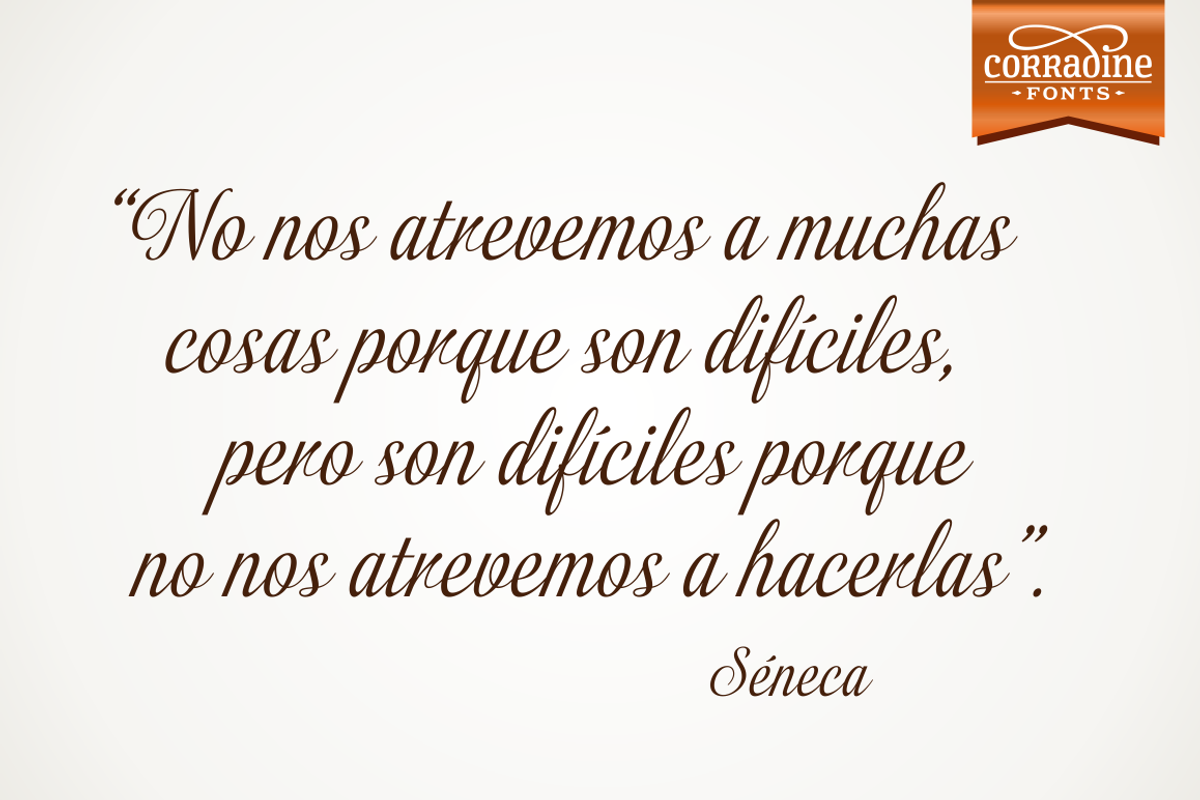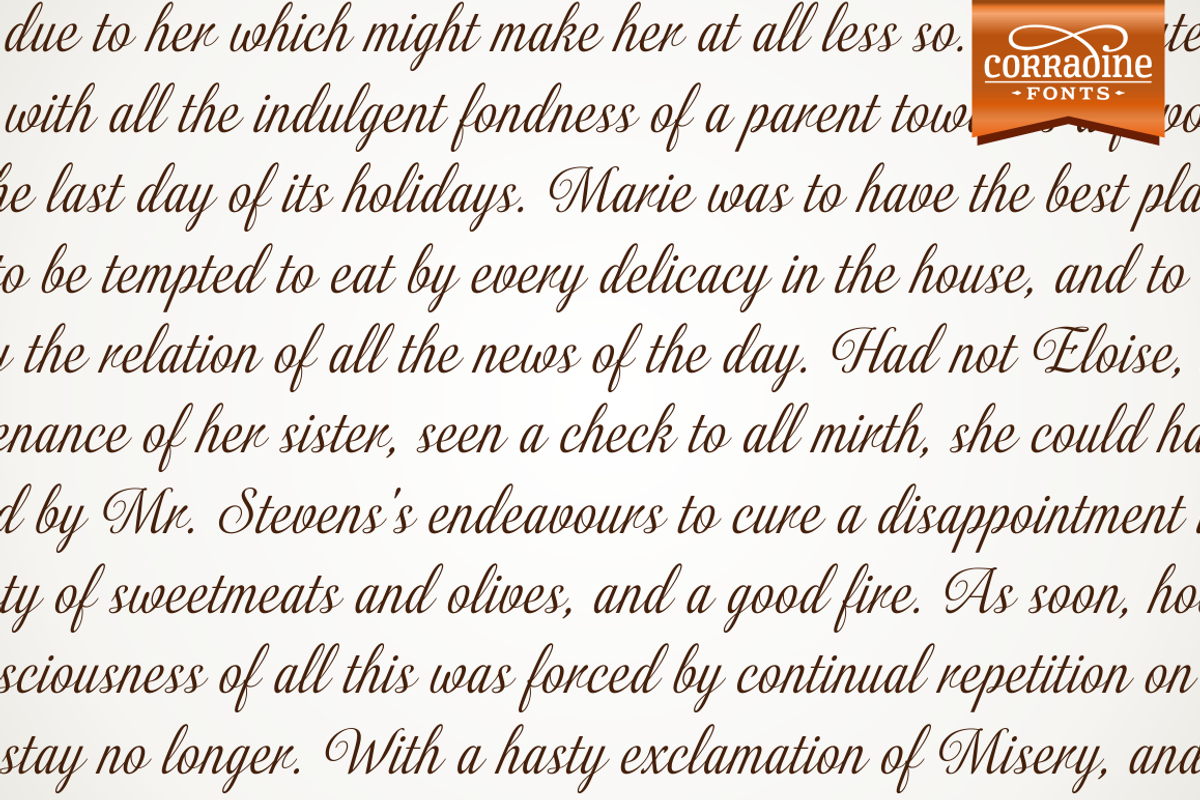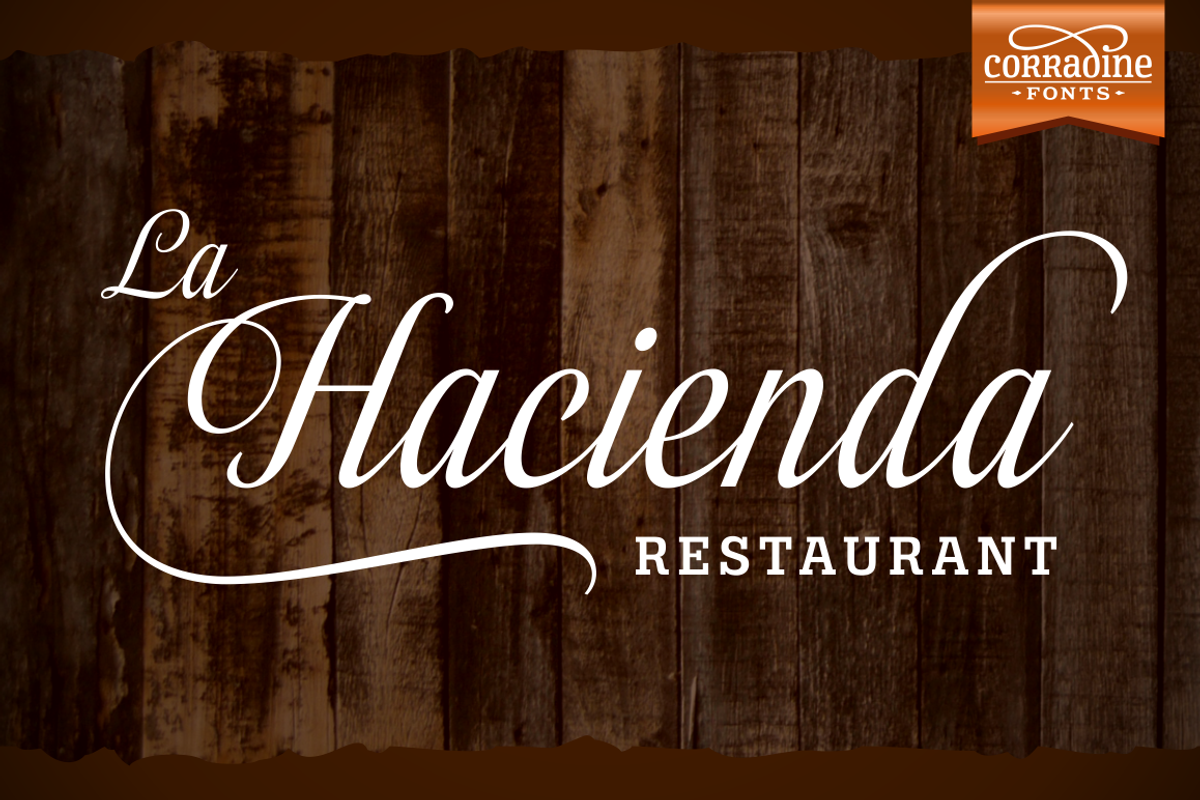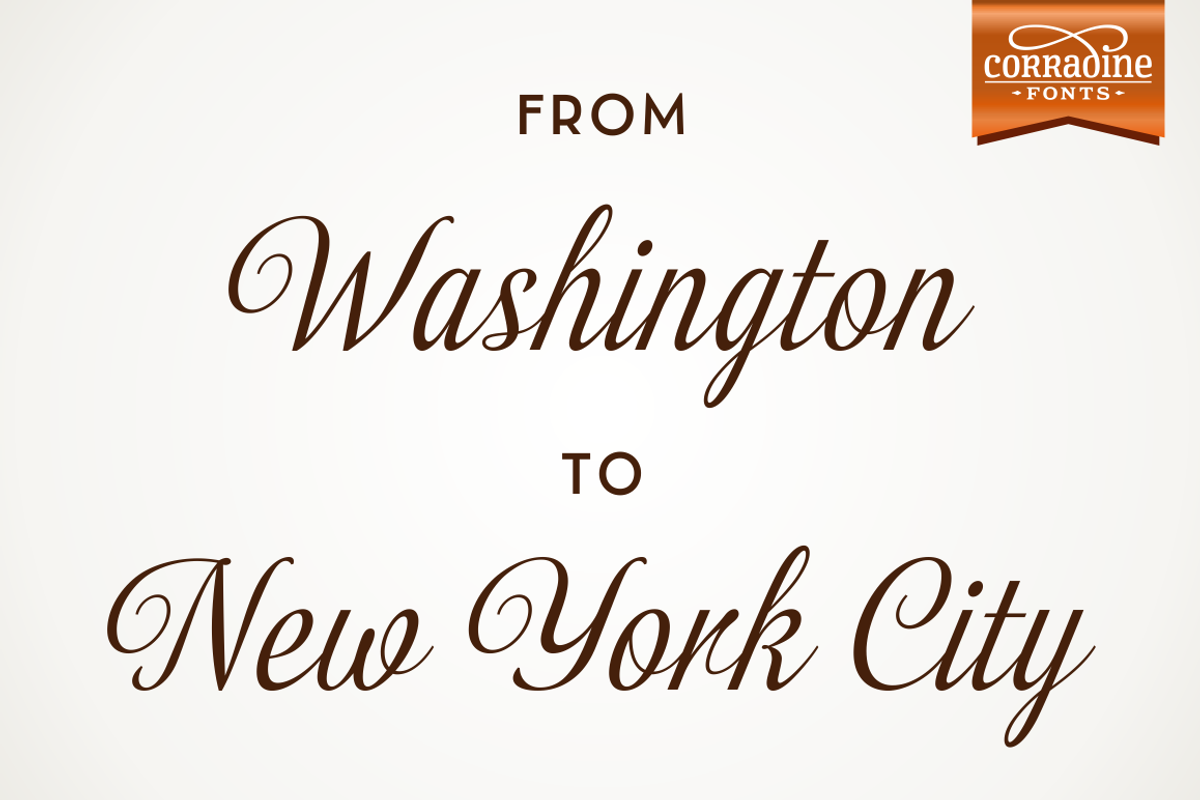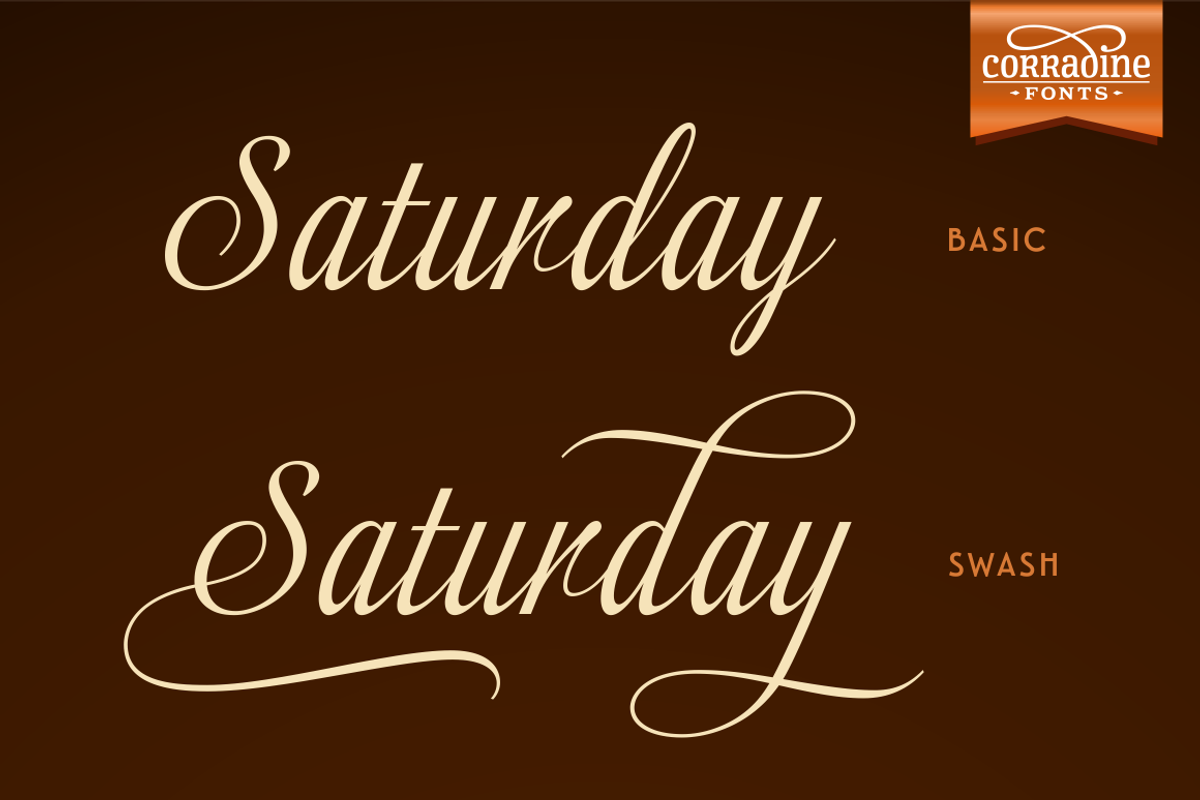
Almibar Pro
Almibar Pro by Corradine Fonts is a font selected for branding, posters, packaging, typography.
Why Almibar Pro is worth a look
Almibar Pro by Corradine Fonts fits naturally into Branding, posters, packaging, typography.